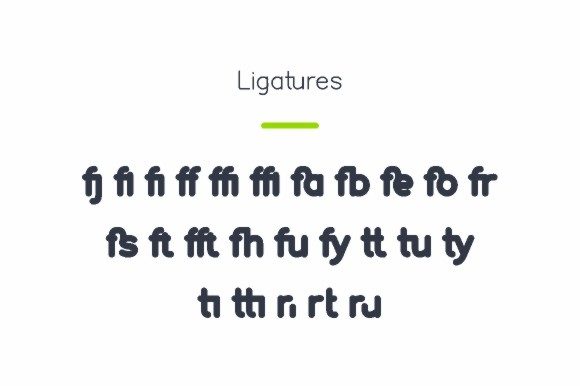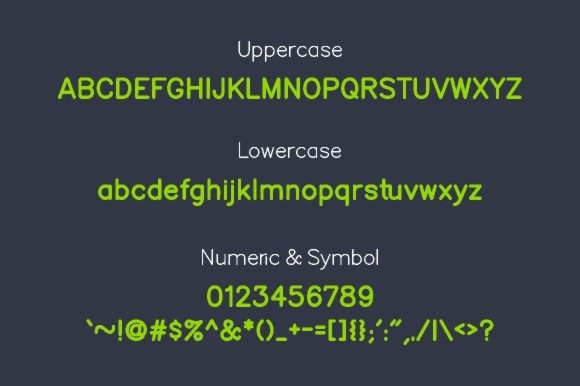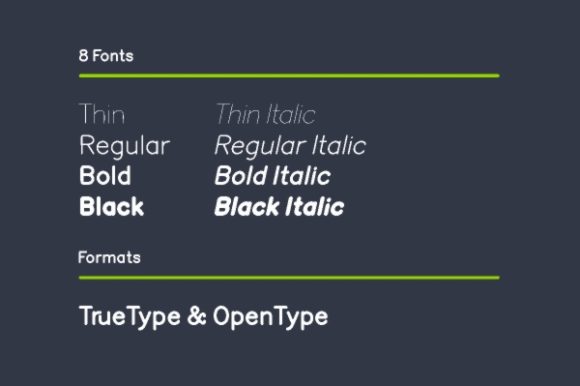
Introducing Enuy Font: The Ultimate Sans Serif for Modern Designs
Are you on the hunt for a font that embodies the essence of modern design? Look no further than Enuy Font, a sleek and minimalistic sans serif font that’s perfect for projects that demand clean, neat characters in a stylish and friendly way. In this article, we’ll dive into the world of Enuy Font, exploring its features, benefits, and uses, and why it’s a must-have for designers and crafters alike.
The Enuy Font Difference
Enuy Font is a masterclass in simplicity and elegance. Its sans serif design ensures that your text is easy to read, while its sleek lines and curves add a touch of sophistication to any project. Whether you’re working on a website, logo, or print material, Enuy Font is the perfect choice for designers who want to create a lasting impression.
Key Features of Enuy Font
• Clean and Minimalistic Design: Enuy Font boasts a clean and minimalistic design that’s perfect for modern projects. Its simple lines and curves make it easy to read and understand.
• Sleek and Friendly Characters: Enuy Font’s characters are designed to be stylish and friendly, making it perfect for projects that require a touch of personality.
• Highly Versatile: Enuy Font is highly versatile and can be used for a wide range of projects, from websites and logos to print materials and more.
• Easily Readable: Enuy Font is designed to be easily readable, even at small font sizes, making it perfect for body text and other large blocks of text.
Benefits of Using Enuy Font
So, why should you choose Enuy Font for your next project? Here are just a few benefits of using this amazing font:
• Instant Professionalism: Enuy Font adds an instant touch of professionalism to any project, making it perfect for businesses and individuals who want to create a lasting impression.
• Improved Readability: Enuy Font’s clean and simple design makes it easy to read, even for large blocks of text.
• Flexibility: Enuy Font is highly versatile and can be used for a wide range of projects, from websites and logos to print materials and more.
• Unique and Stylish: Enuy Font’s sleek and friendly characters make it perfect for designers who want to add a touch of personality to their projects.
Who Can Benefit from Enuy Font?
Enuy Font is perfect for a wide range of designers and crafters, including:
• Graphic Designers: Enuy Font is perfect for graphic designers who want to create stunning visual content for their clients.
• Web Designers: Enuy Font is highly optimized for web use and is perfect for designers who want to create clean and responsive websites.
• Logotype Designers: Enuy Font’s sleek and friendly characters make it perfect for logotype designers who want to create memorable and stylish logos.
• Crafters and Makers: Enuy Font is also perfect for crafters and makers who want to add a touch of personality to their handmade projects.
In conclusion, Enuy Font is a sleek and minimalistic sans serif font that’s perfect for modern projects. Its clean and neat characters make it easy to read, while its stylish and friendly design adds a touch of personality to any project. Whether you’re a graphic designer, web designer, or crafter, Enuy Font is a must-have font that’s sure to elevate your designs to the next level.